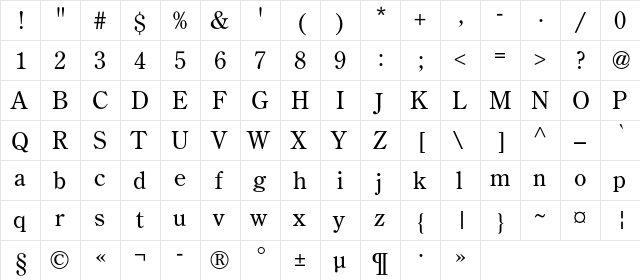
AGCenturionC Regular
Design Context for AGCenturionC Typeface
AGCenturionC is a composed and adaptable typeface that performs quietly and consistently across a wide range of design contexts.